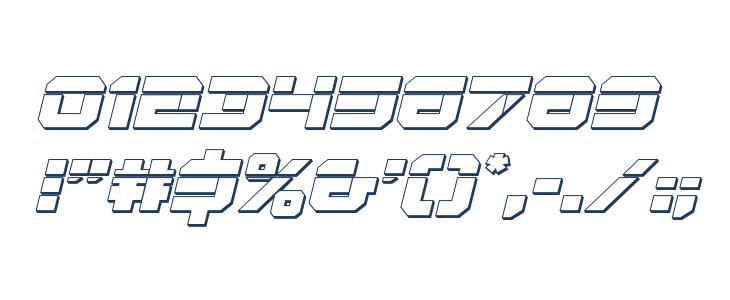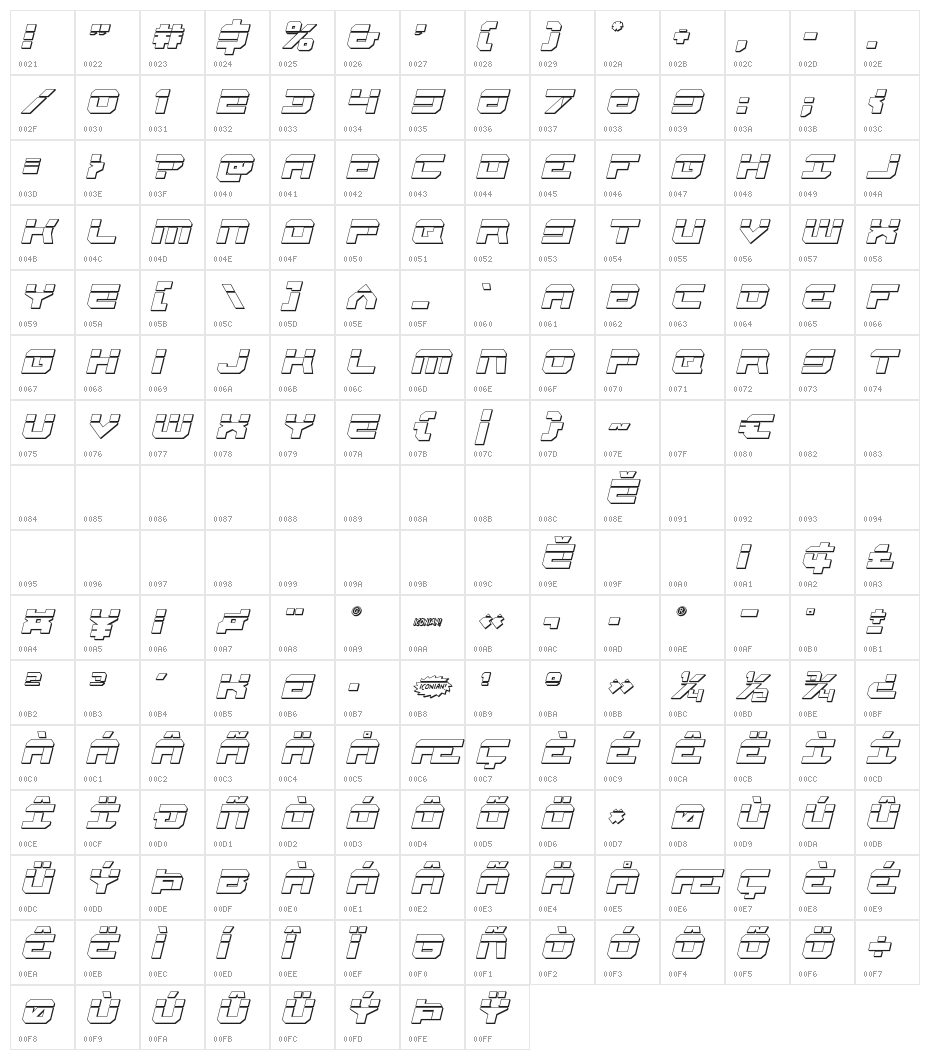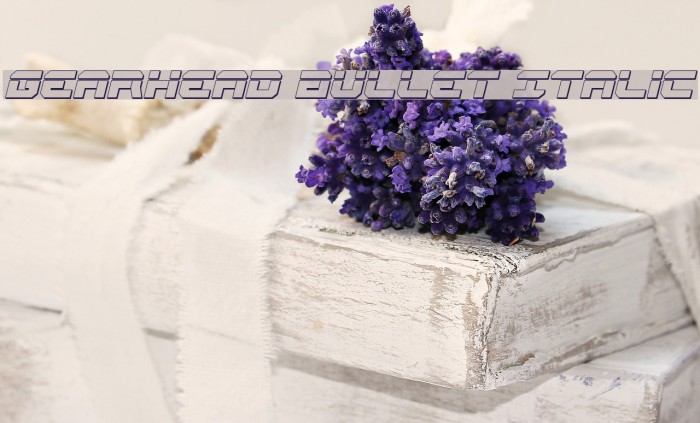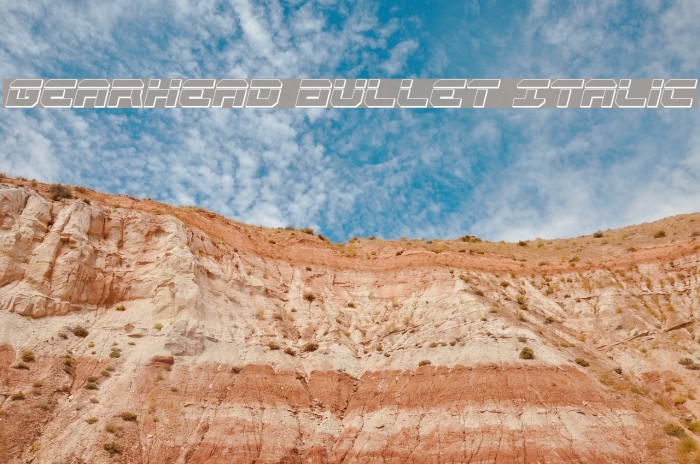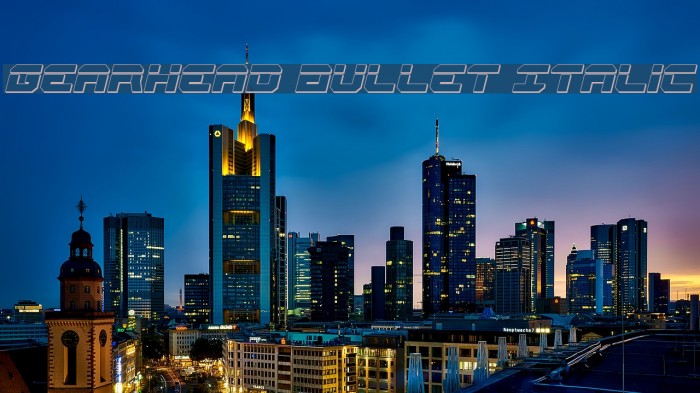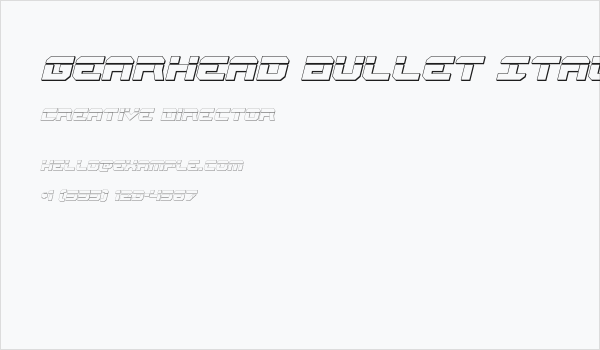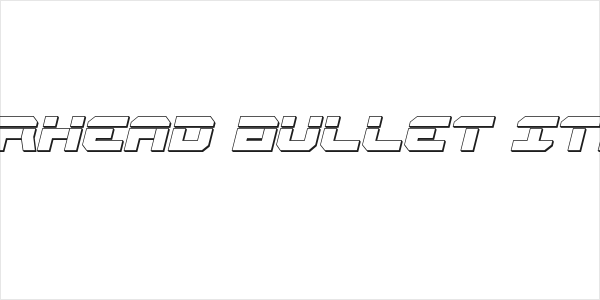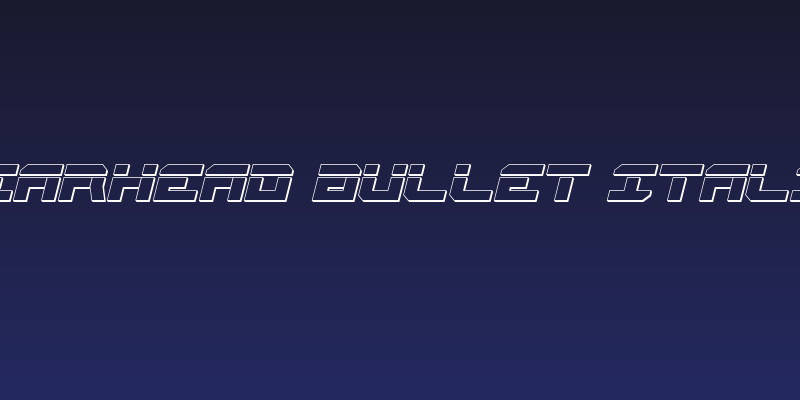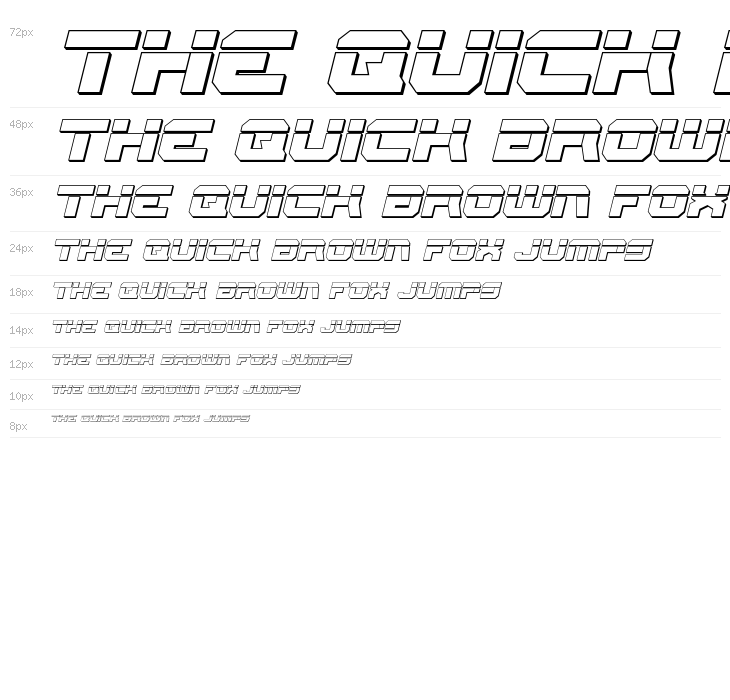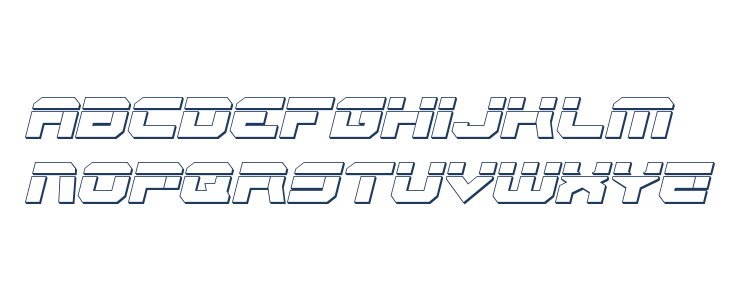
Gearhead Bullet Italic Font
Gearhead Bullet Italic Description
This font features a bold, futuristic design with a distinct geometric structure. Each character is outlined, giving it a three-dimensional appearance. The angular shapes and sharp edges contribute to its modern and industrial feel. The italic slant adds a dynamic and forward-moving energy, making it suitable for projects that require a sense of speed or technology. The characters are evenly spaced, ensuring readability while maintaining a compact form. This font is ideal for use in digital interfaces, gaming, or tech-related branding, where a strong and innovative visual impact is desired.
| Use Case | Logos, Headlines, Digital Interfaces |
| Proposed Projects | Ideal for tech branding, gaming interfaces, digital media, and futuristic design projects. |